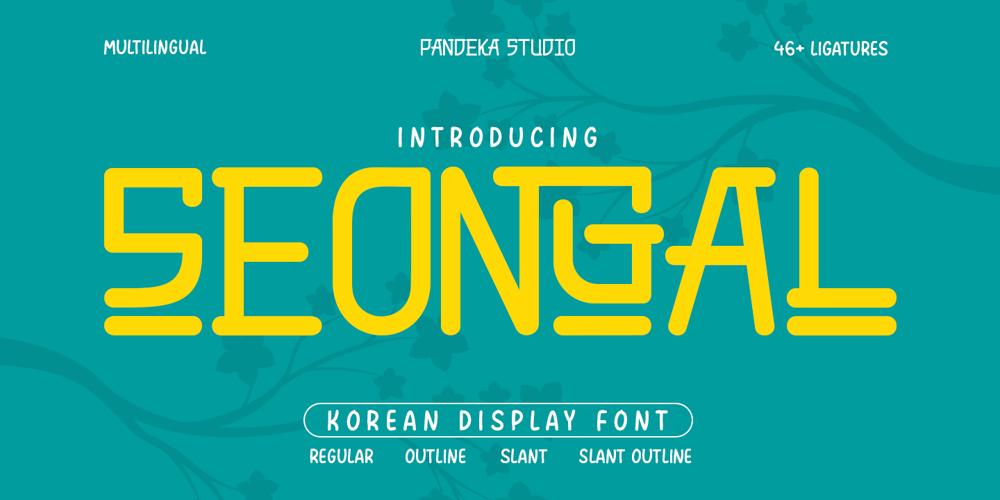
Seongal
Seongal font
Seongal Font Family was designed by Sagara Nararya and published by Pandeka Studio. Seongal contains 4 styles and family package options. Seongal – Korean Display Typeface in 4 StylesSeongal is a Korean display typeface that blends bold typography with a traditional aesthetic and modern design. Its elegant curves reflect cultural style while maintaining unique lettering for a distinctive look.Available in Regular, Outline, Slant, and Slant Outline, Seongal is perfect for branding, editorial design, cultural events, packaging, signage, and logo typography, adding a timeless and refined touch to any project.What’s Included: Main Files formats 4 Styles: Outline, Regular, Slant, Slant Outline Full Character Set: uppercase, lowercase, numbers, symbols, punctuation and ligature 46+ Ligatures and alternates Easy to Use: Compatible with both PC & Mac Compatible with Adobe Illustrator, Photoshop, Microsoft Word, Canva, and more PUA Encoded: Fully accessible without additional software Language Support: Danish, English, Estonian, Filipino, Finnish, French, Friulian, Galician, German, Gusii, Indonesian, Irish, Italian, Luxembourgish, Norwegian Bokmål, Norwegian Nynorsk, Nyankole, Oromo, Portuguese, Romansh, Rombo, Spanish, Swedish, Swiss-German, Uzbek (Latin)Korean Display Typeface Bold Typography Traditional Aesthetic Modern Design Cultural Style Unique LetteringEmbrace Korean tradition and modernity with Seongal! ✨Thank you and happy designing!Pandeka Studio